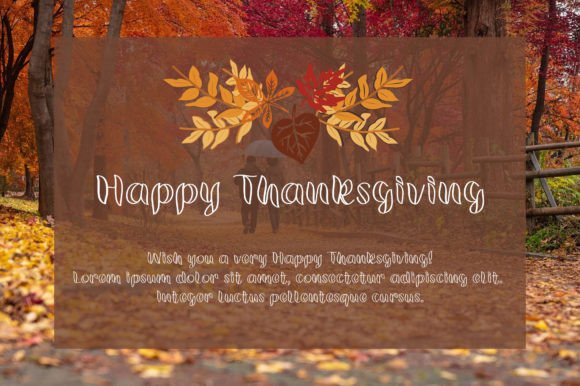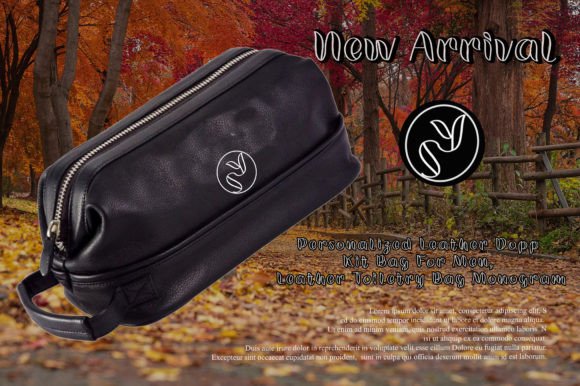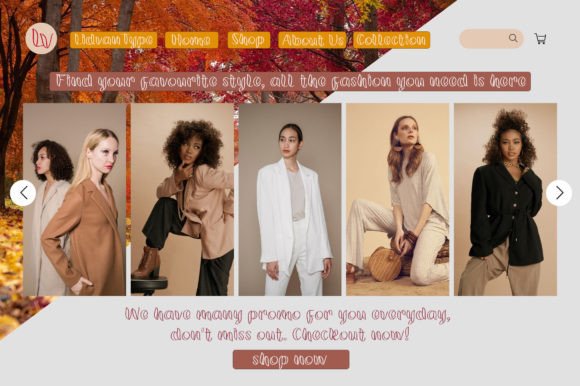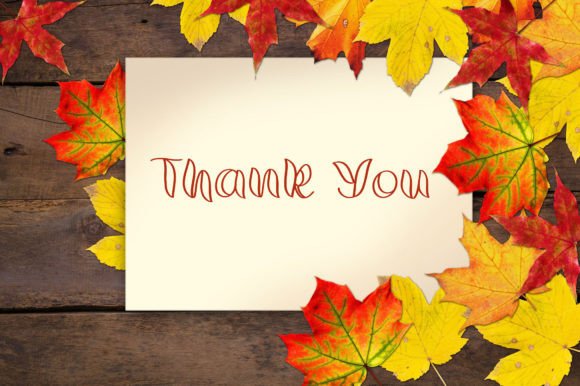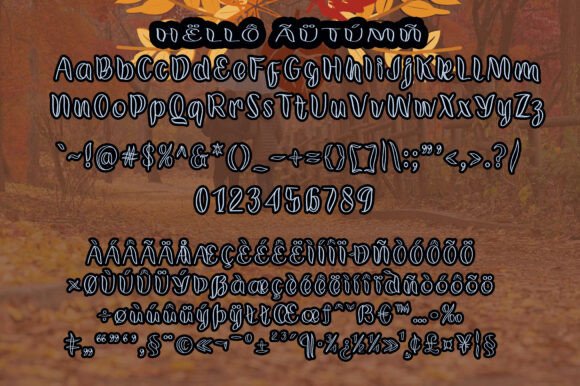
The Cozy Feel of Hello Autumn Font
As the leaves start to change colors, designers are looking for the perfect font to capture the essence of autumn. You know that moment when you stumble upon a font that perfectly complements your creative vision? For many designers, that moment is about to arrive with the introduction of Hello Autumn Font.
Hello Autumn Font is a stunning, leaf-textured handwriting that exudes elegance and sophistication. Created specifically for designers seeking a beautiful and refreshing look, this font is perfect for a wide range of projects, from logotypes and headline fonts to corporate identity and brand identity.
With its versatility and unique texture, Hello Autumn Font is a valuable addition to any designer’s toolkit. Whether you’re working on a poster, music album, or website, this font is sure to bring a touch of autumnal charm to your designs.
Hello Autumn Font Key Features
- Unique Characteristics: The Hello Autumn Font features a warm and cozy design, with intricate details and textures that evoke the feeling of fall foliage. The font includes various ornaments and decorations that can be used to add a touch of autumnal charm to any design.
Hello Autumn Font Review
As a designer, I’ve had the chance to work with a wide range of fonts, and Hello Autumn is one of the more interesting ones I’ve come across. ✨ The first thing that caught my eye was the unique blend of elegance and rustic charm that this font exudes. The letterforms are intricately designed, with subtle flourishes that give it a handmade feel.
Here are some things that work well with Hello Autumn:
- ✨ The font’s versatility: it can be used for a variety of applications, from invitations to editorial design.
- ✨ The attention to detail: the designer has clearly put a lot of thought into creating a cohesive and harmonious font family.
- ✨ The unique aesthetic: Hello Autumn has a distinct look that sets it apart from more common fonts.
- ⚠️ The font may not be suitable for small text sizes, as the details can get lost at smaller point sizes.
- ⚠️ The font’s complexity may make it difficult to use in certain design contexts, such as for large blocks of text.
Overall, I think Hello Autumn is a great choice for designers who want to add a touch of elegance and whimsy to their work. While it may have some limitations, its unique aesthetic and attention to detail make it a valuable addition to any design toolkit.
Use “Hello Autumn Font” for seasonal designs, such as fall invitations, Thanksgiving cards, and Halloween decorations.
Experiment with different font sizes, colors, and styles to create a unique look.
Combine “Hello Autumn Font” with other design elements, such as leaves, pumpkins, and acorns, to create a cohesive design.